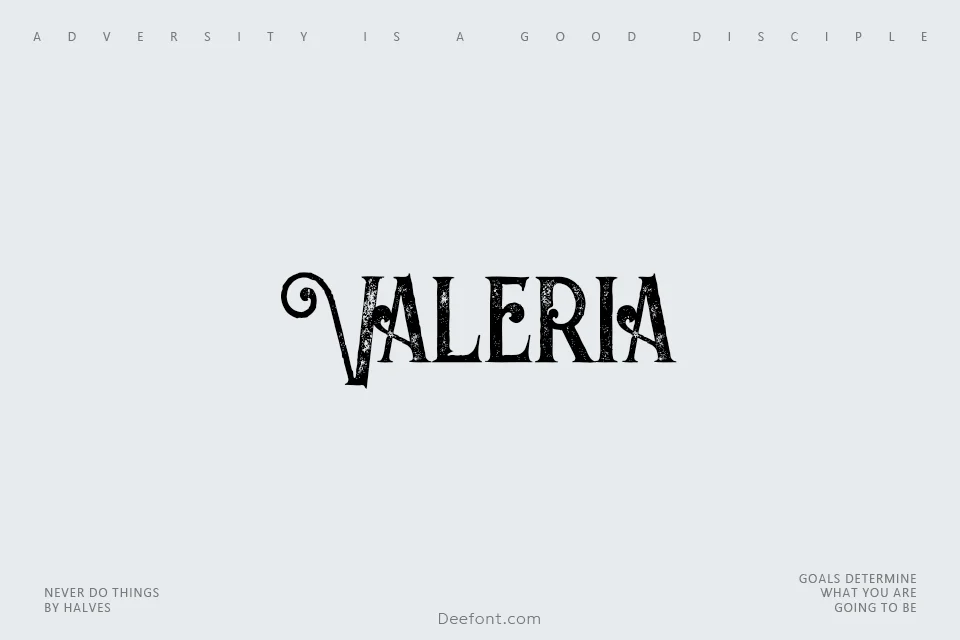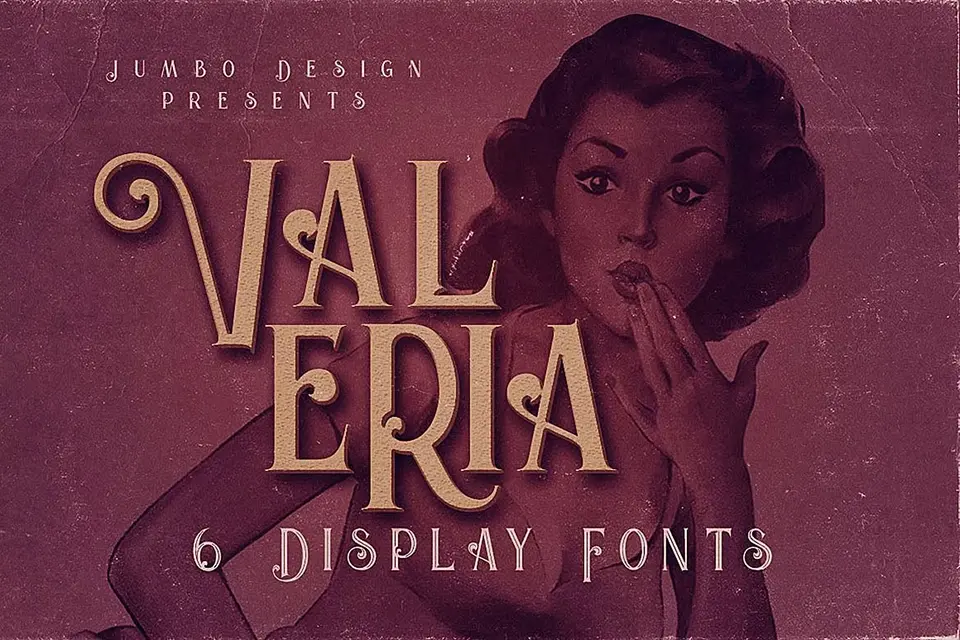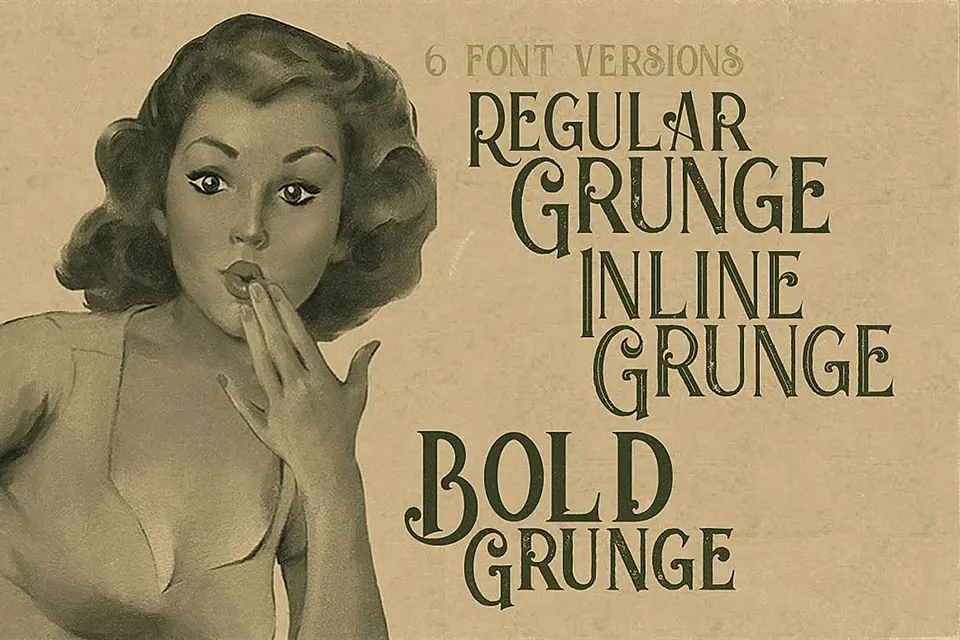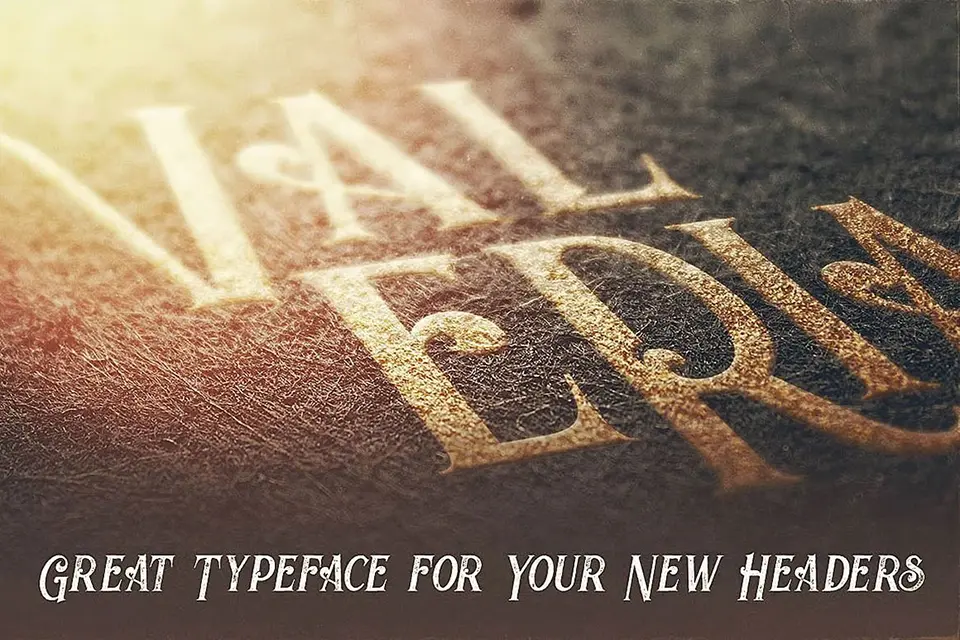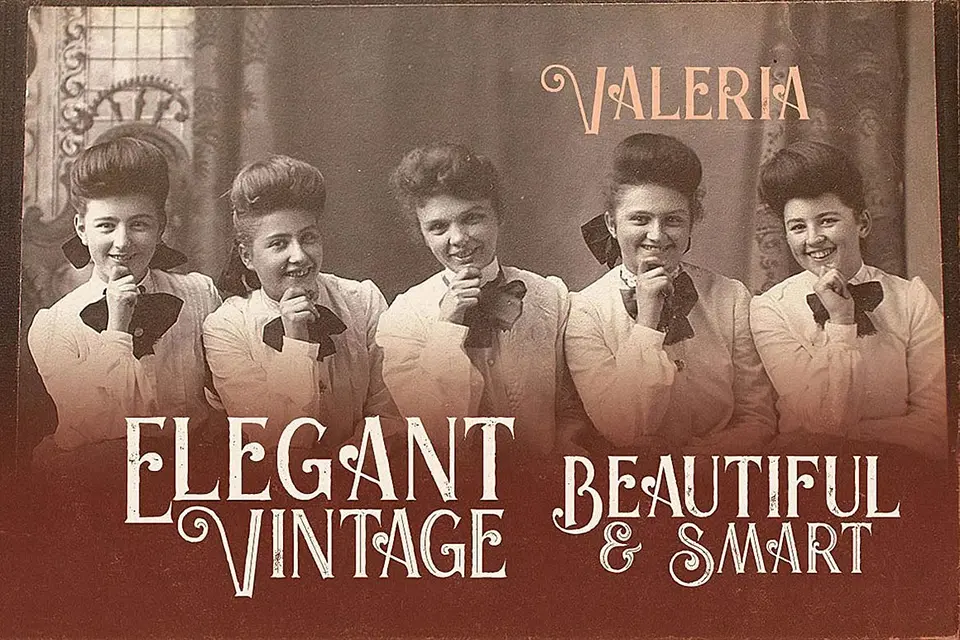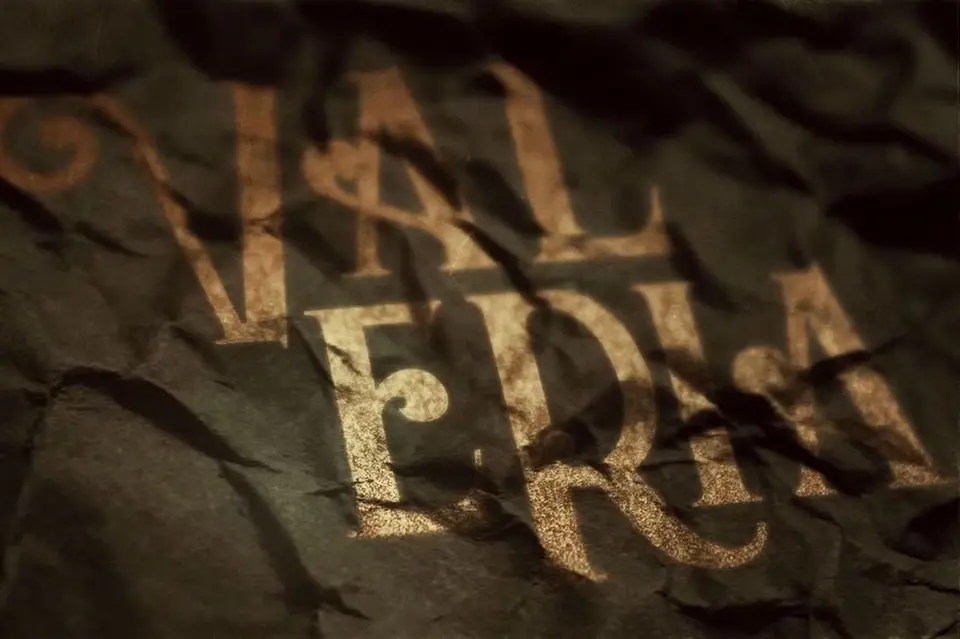
Valeria Font
Valeria is a bold grunge display font created by Peter Olexa, featuring a vintage retro aesthetic perfect for eye-catching headlines and creative projects. This distinctive typeface combines strong geometric strokes with grungy texture, delivering a unique style ideal for posters, album covers, invitations, and branding materials. The font’s bold personality makes it stand out in any design composition while maintaining excellent readability.